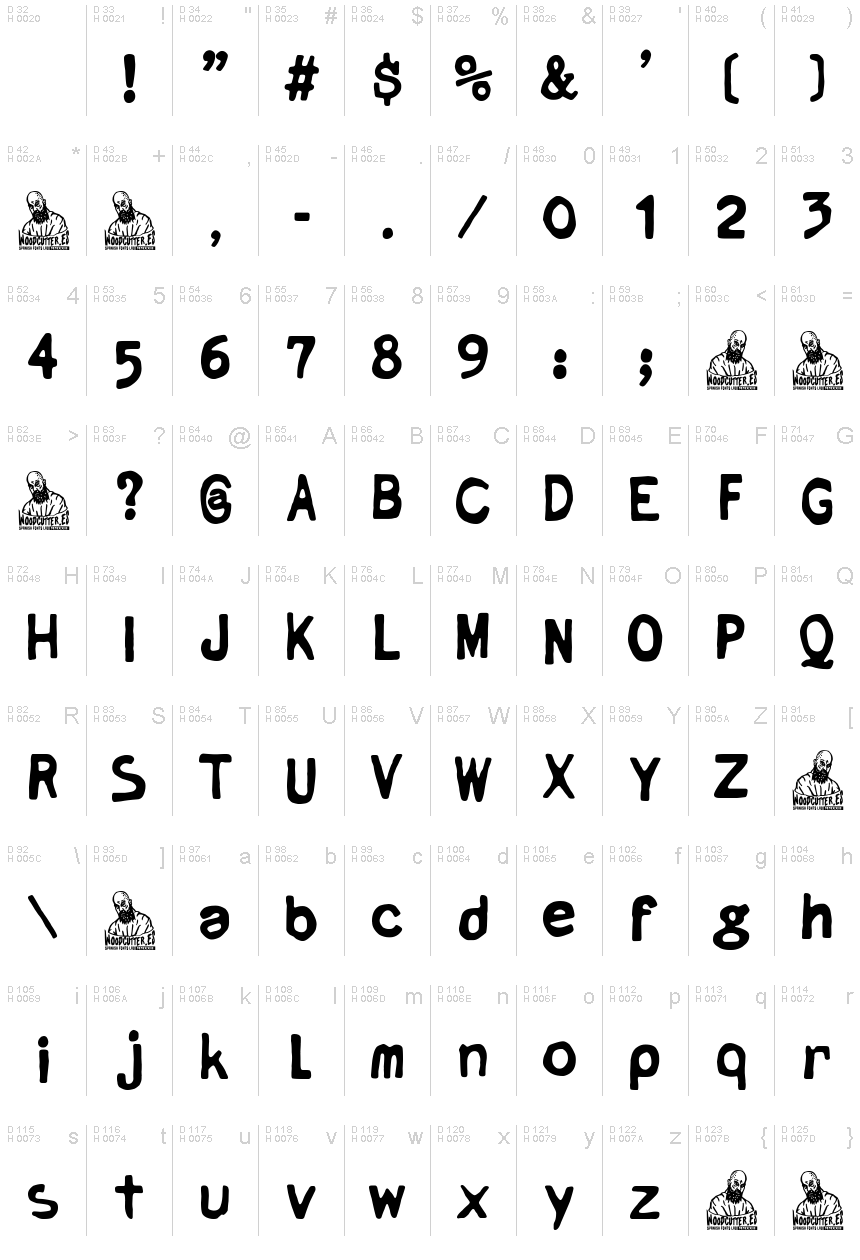
Escritor de Basura
Escritor de Basura, designed by Woodcutter, is a captivating display font that exudes a playful, distorted charm. With its whimsical, cartoon-inspired aesthetic, this font effortlessly captures the essence of carefree expression. The irregular, organic lines and unique character shapes create a visually striking and eye-catching typographic style, making it an ideal choice for projects seeking a bold, memorable impact.
Escritor de Basura's versatility extends across a range of applications, from eye-catching headlines and creative logos to impactful branding and packaging designs. Its distinctive, off-kilter personality lends itself particularly well to projects with a quirky, unconventional tone, allowing designers to infuse their work with a touch of fun and personality.